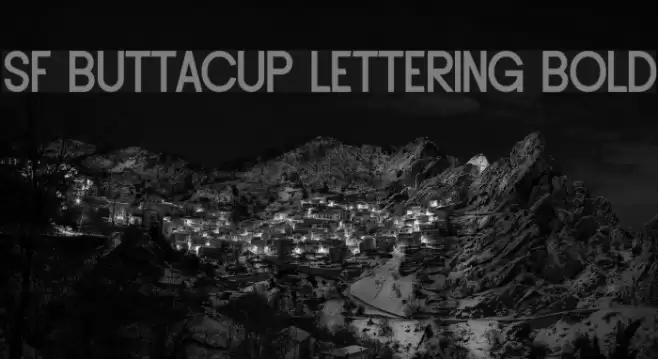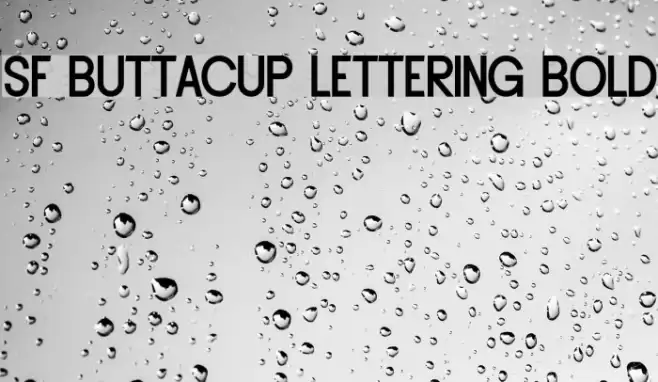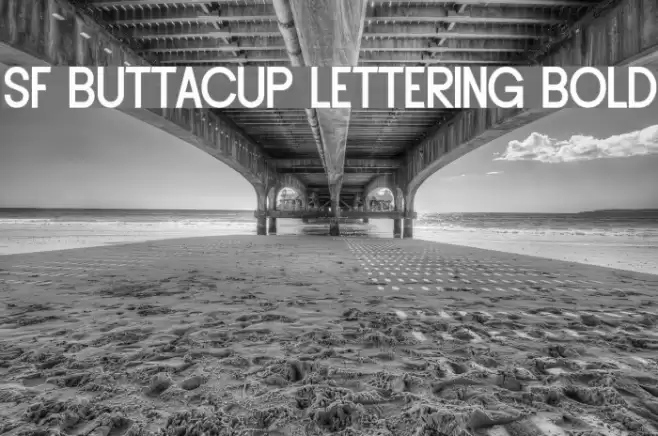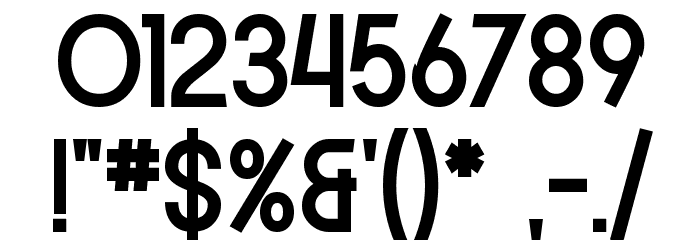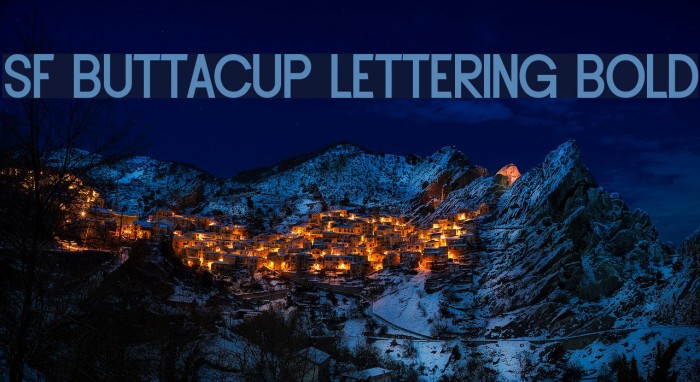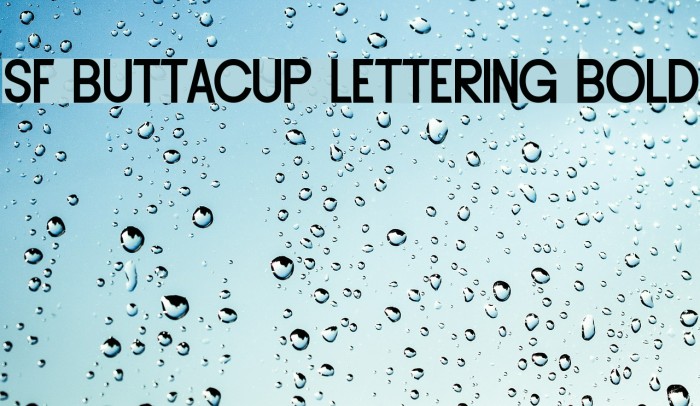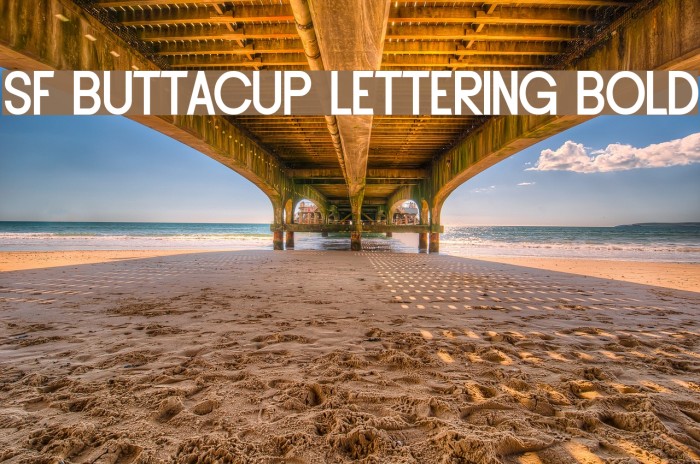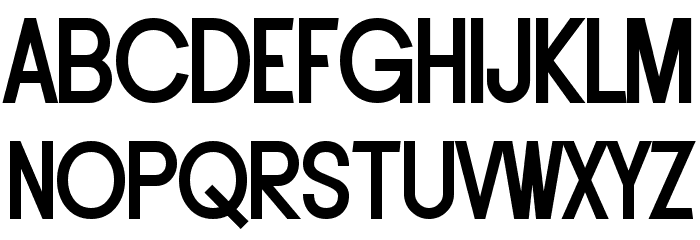
SF Buttacup Lettering Bold Font
SF Buttacup Lettering Bold Description
This font features bold, clean lines with a modern sans-serif style. The characters are evenly spaced, providing a balanced and uniform appearance. The uppercase letters are prominent and assertive, while the lowercase letters maintain a consistent height and width, enhancing readability. The numerals are clear and distinct, making them suitable for various applications. Special characters are designed with the same boldness, ensuring they stand out. The overall design is versatile, making it ideal for both digital and print media.
A bold, modern sans-serif font with clean lines and balanced spacing from Decorative fonts.
- Proposed Projects: Ideal for branding, advertising, headlines, and digital media projects.
- Use Case: Headlines, Logos, Branding